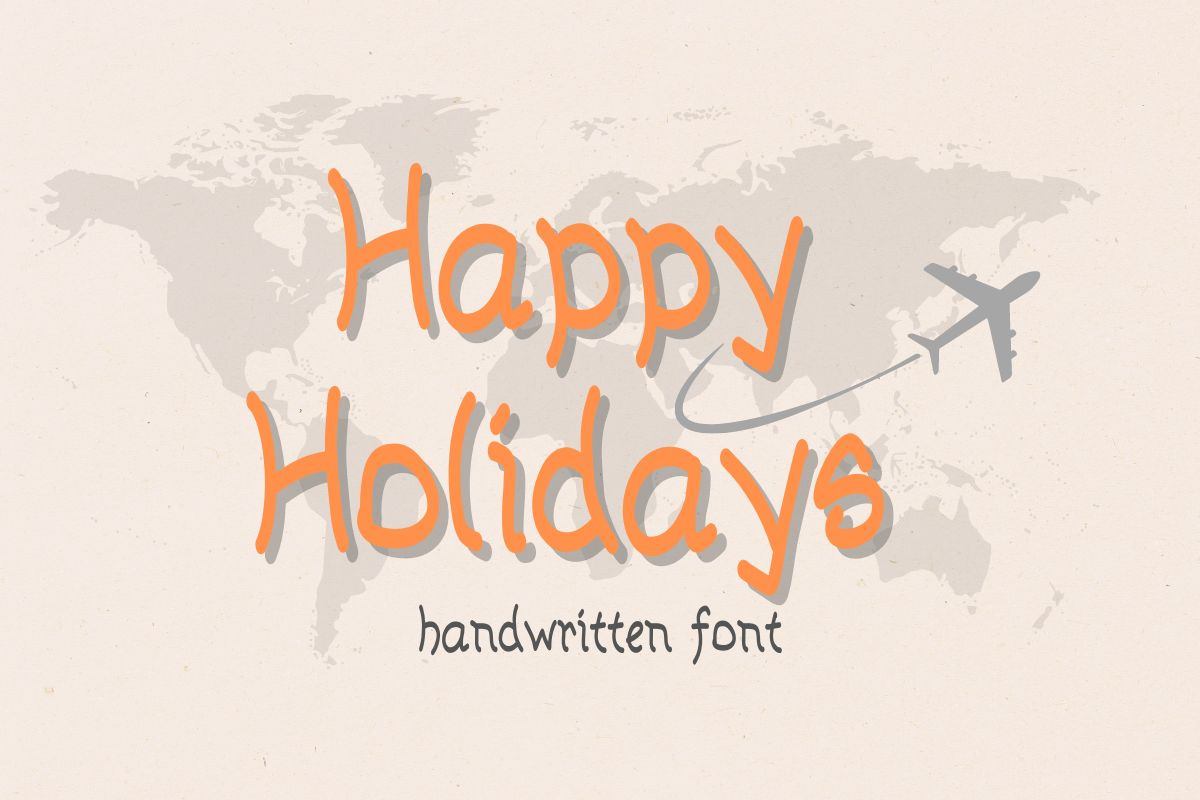
Happy Holidays Handwriting Font Free Download
Happy Holidays Handwriting Font Free Download is a cheerful and festive script typeface that brings warmth, joy, and a personal touch to your seasonal designs. With its hand-drawn style and playful curves, this font is perfect for holiday cards, Christmas invitations, gift tags, winter-themed social media posts, and cozy branding projects.
The casual, handwritten look of Happy Holidays makes it feel authentic and heartfelt—ideal for capturing the magic of the season. Whether you're designing digital greetings or printable holiday decor, this font adds a friendly and joyful vibe.